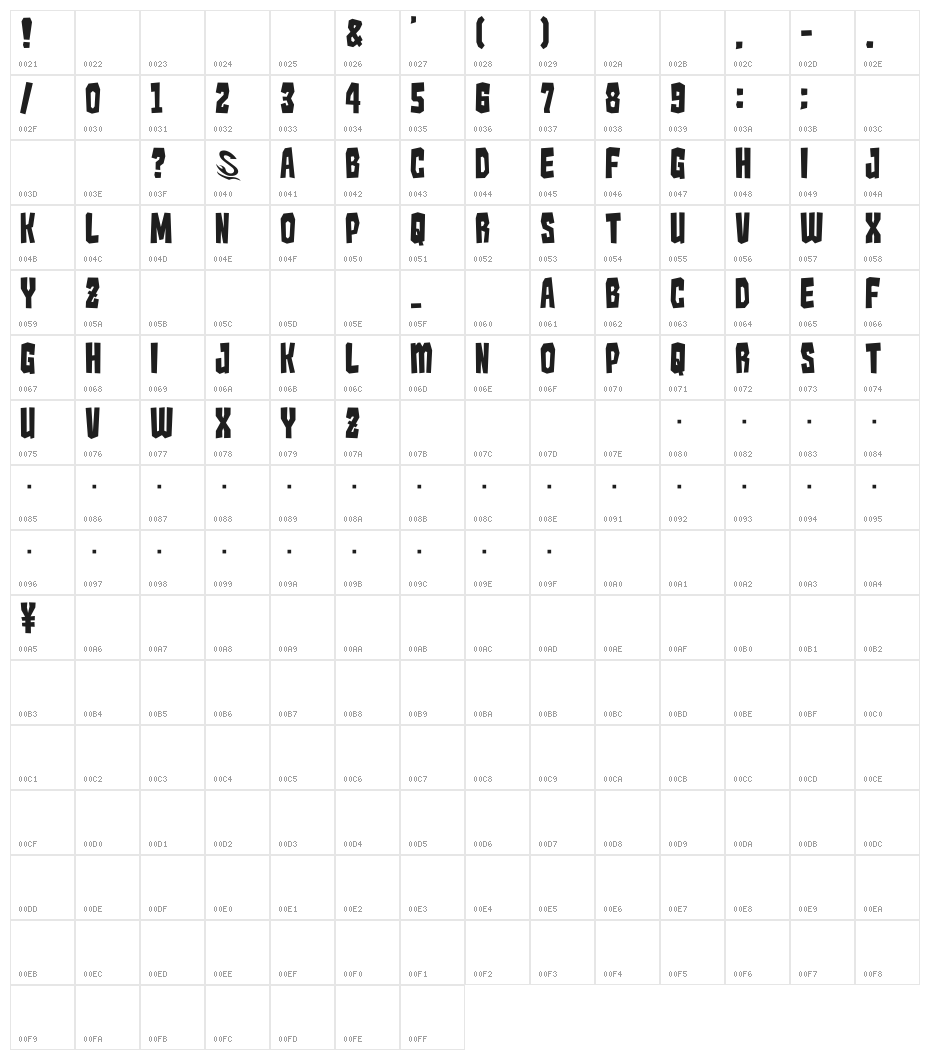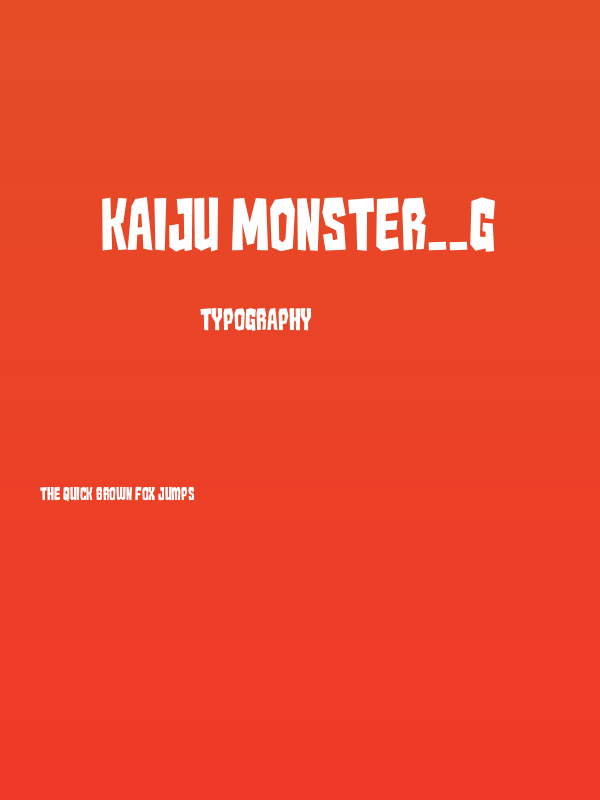
Kaiju Monster__G Font
Kaiju Monster__G Description
This font features a bold and aggressive design, characterized by its sharp, angular edges and thick strokes. The letters are heavily stylized, giving them a monstrous and imposing appearance. The uppercase and lowercase letters maintain a consistent style, with exaggerated serifs and a blocky structure that conveys strength and power. The numbers and special characters follow the same design principles, ensuring a cohesive look across all elements. This font is ideal for projects that require a dramatic and eye-catching typeface.
| Proposed Projects | Perfect for movie posters, video game titles, comic book covers, and branding for products targeting a bold and adventurous audience. |